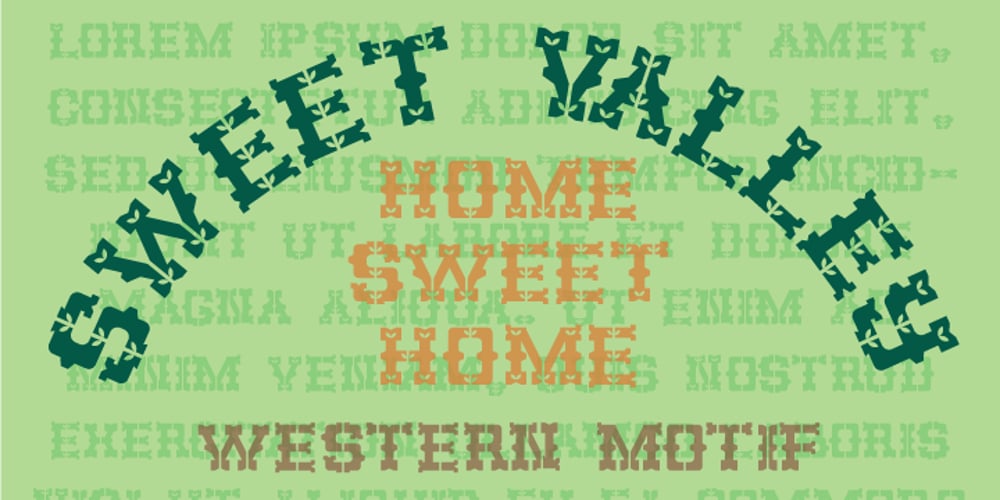
Sweet Valley Font Family was designed by Wilson Thomas and published by Funk King. Sweet Valley contains 1 styles and family package options. Sweet Valley is a western-style font.